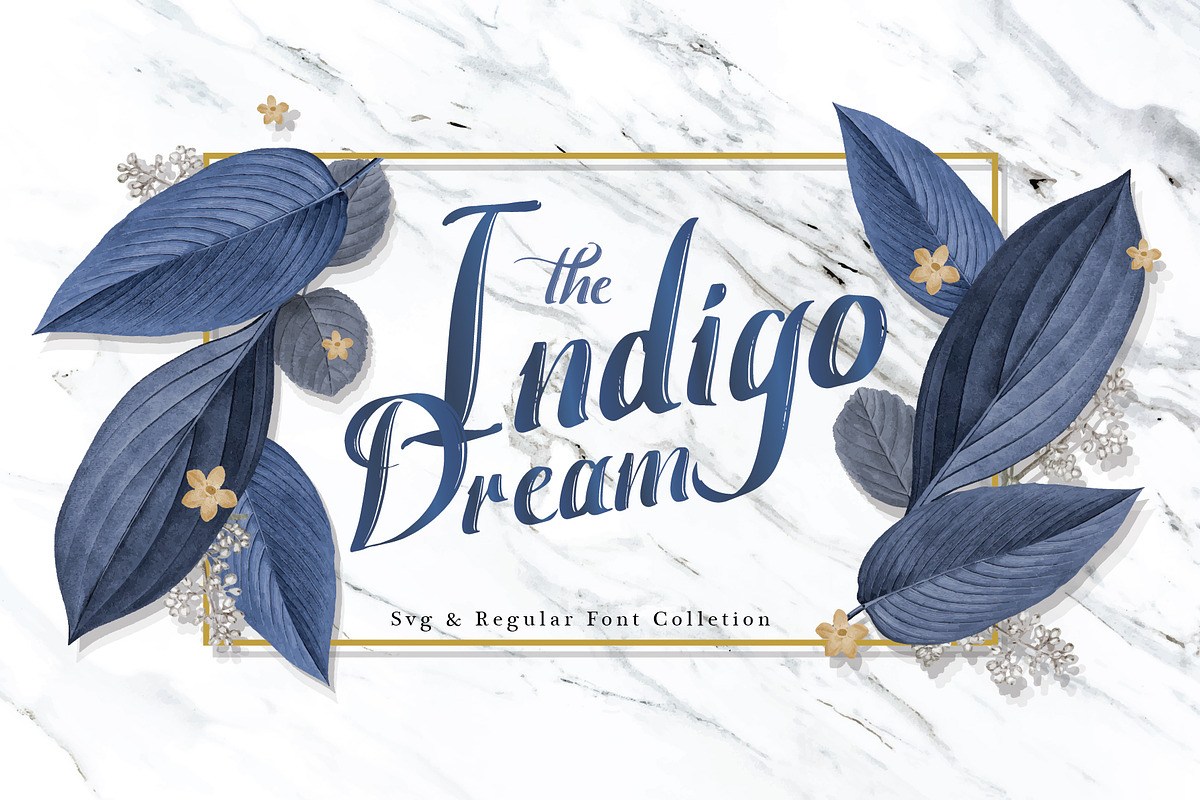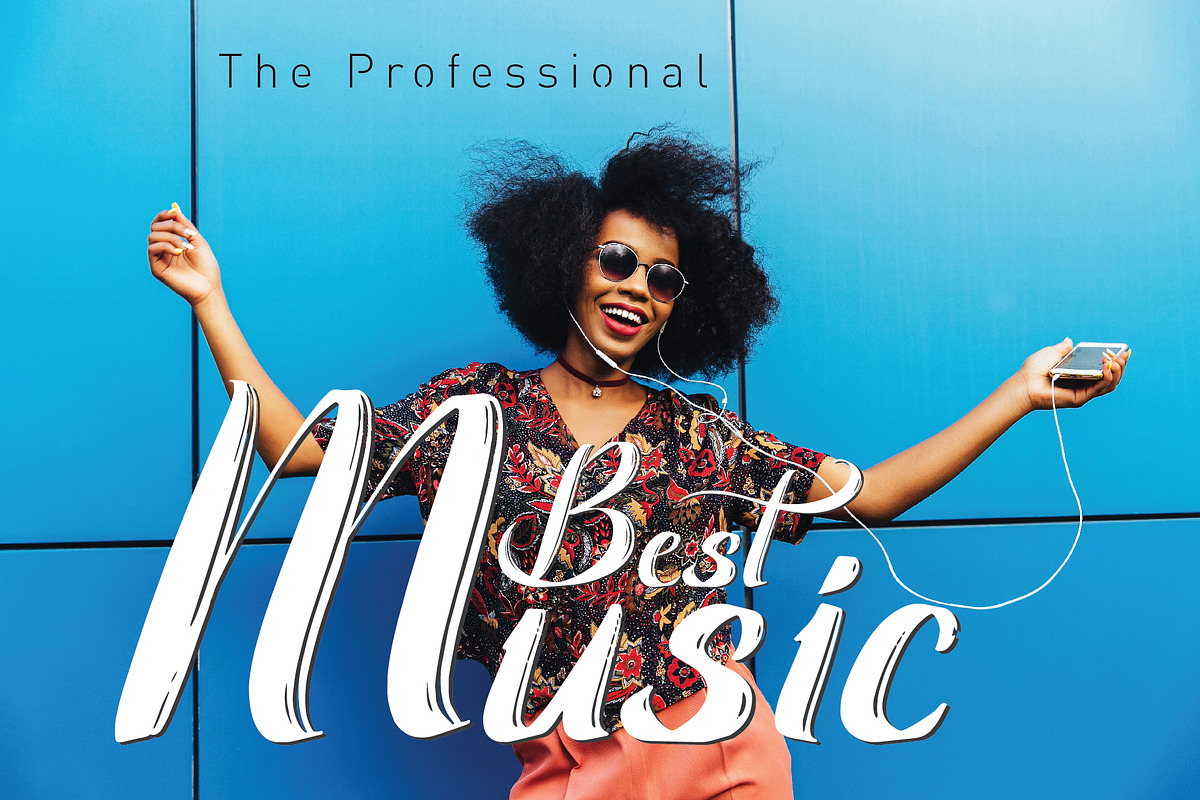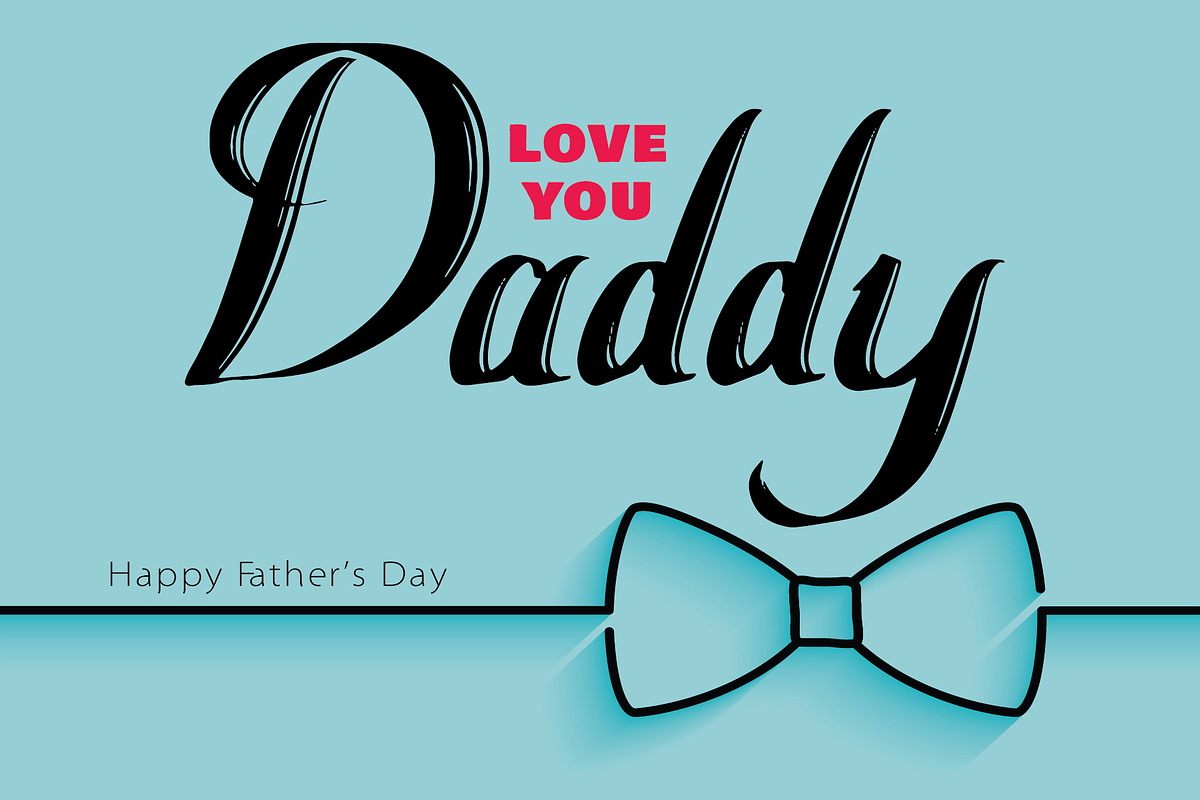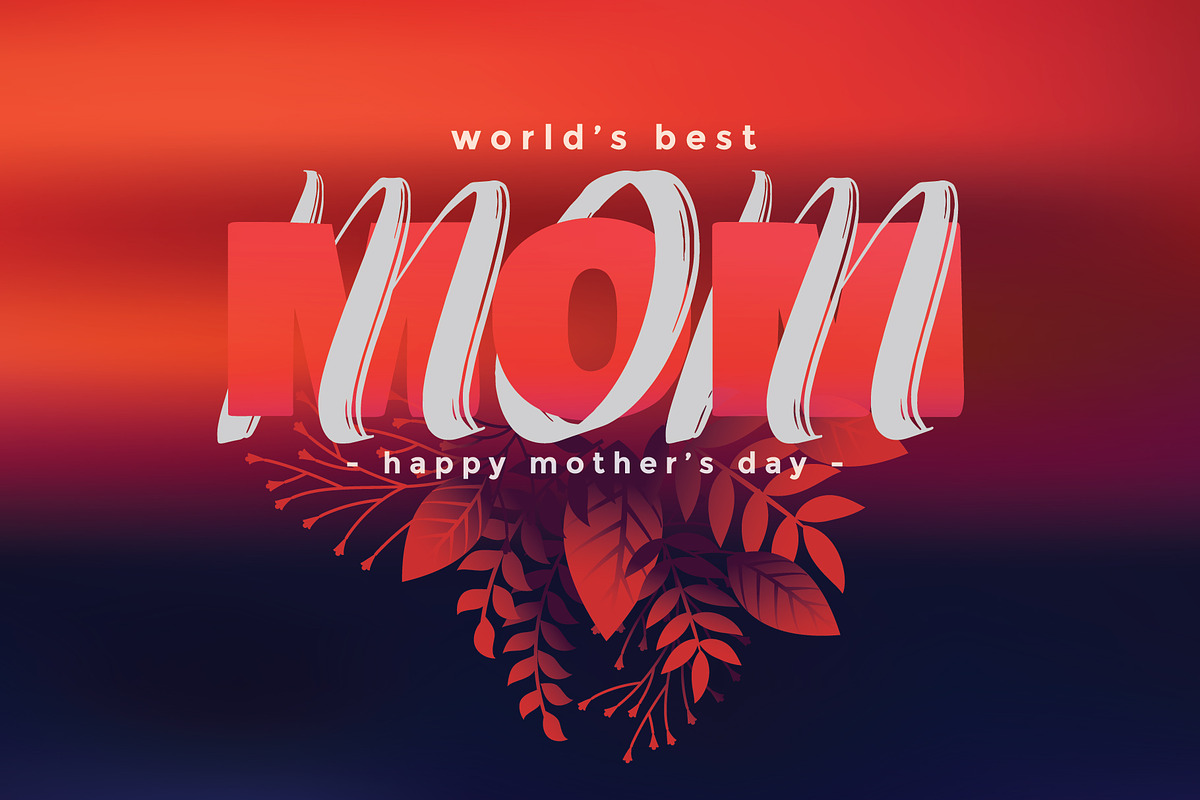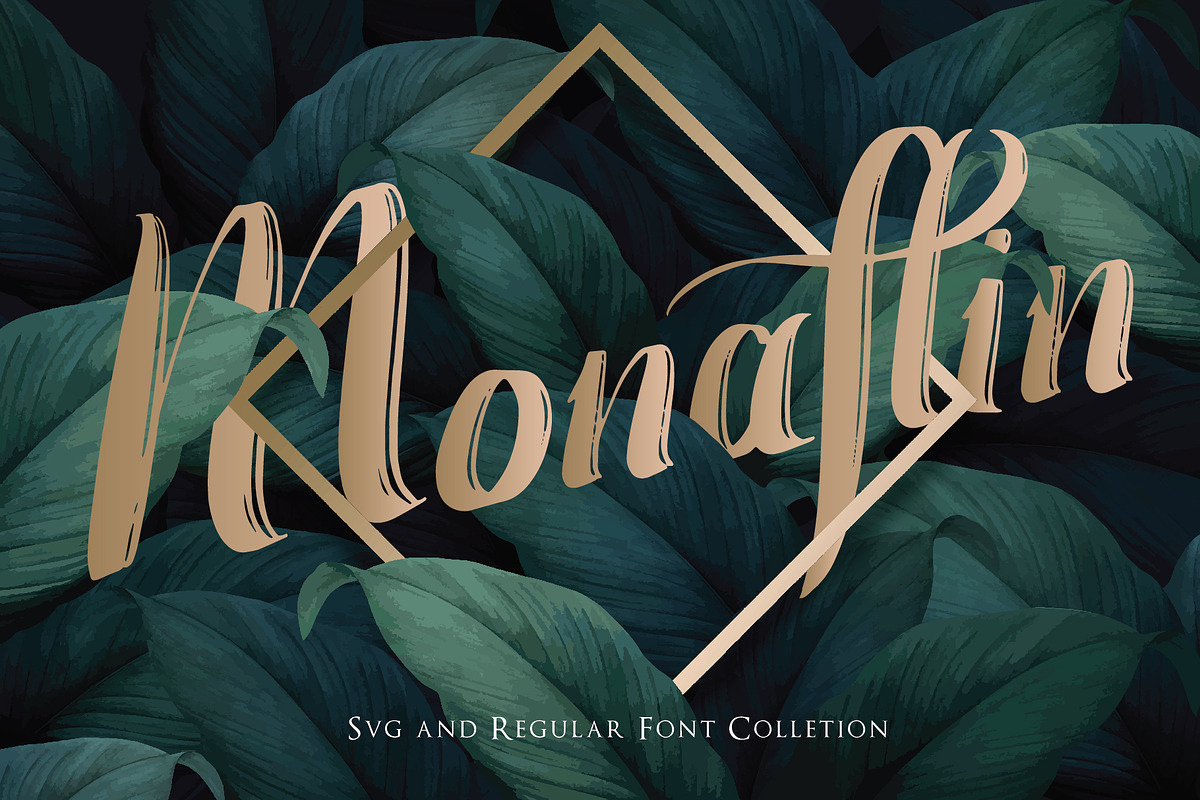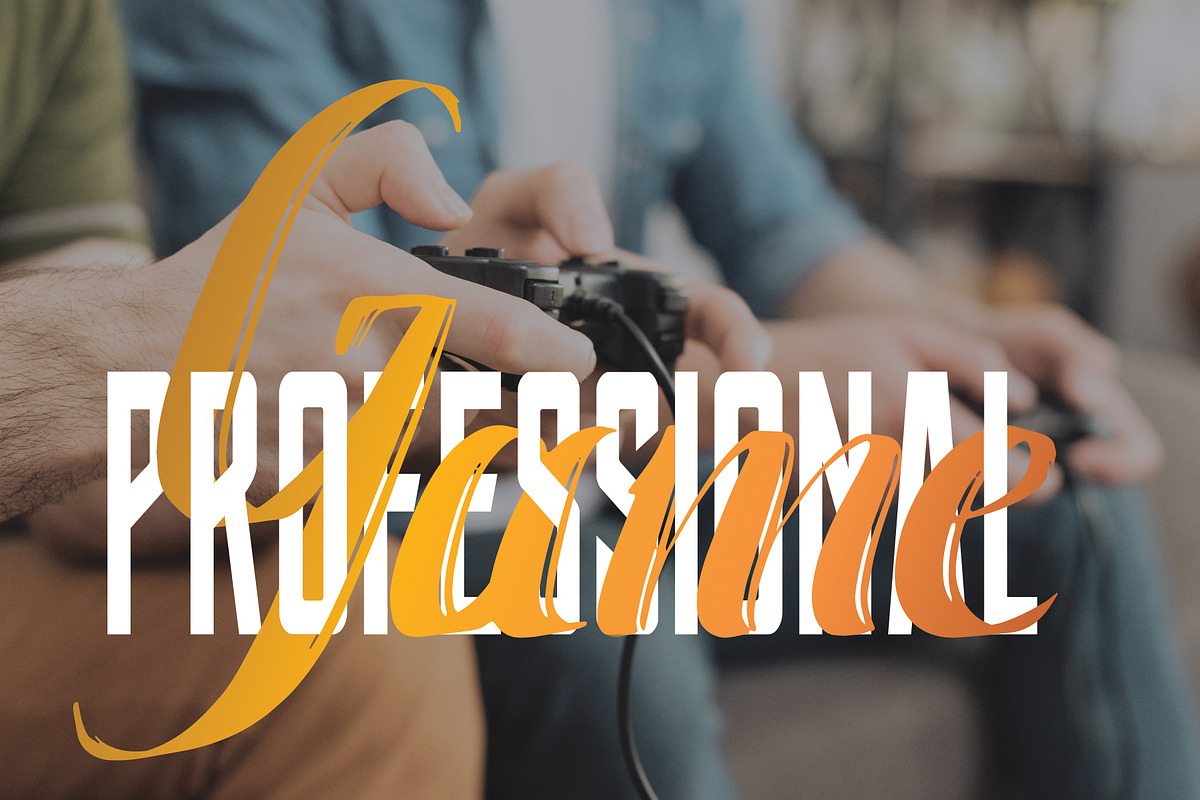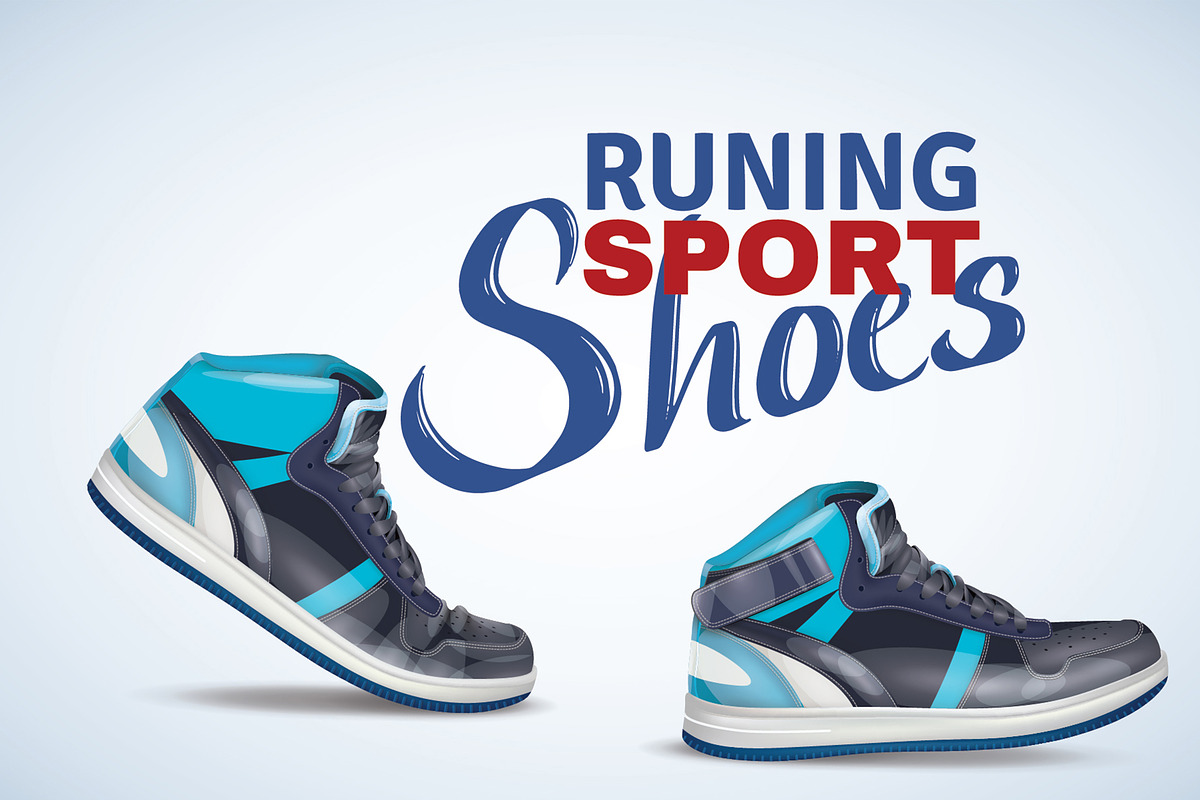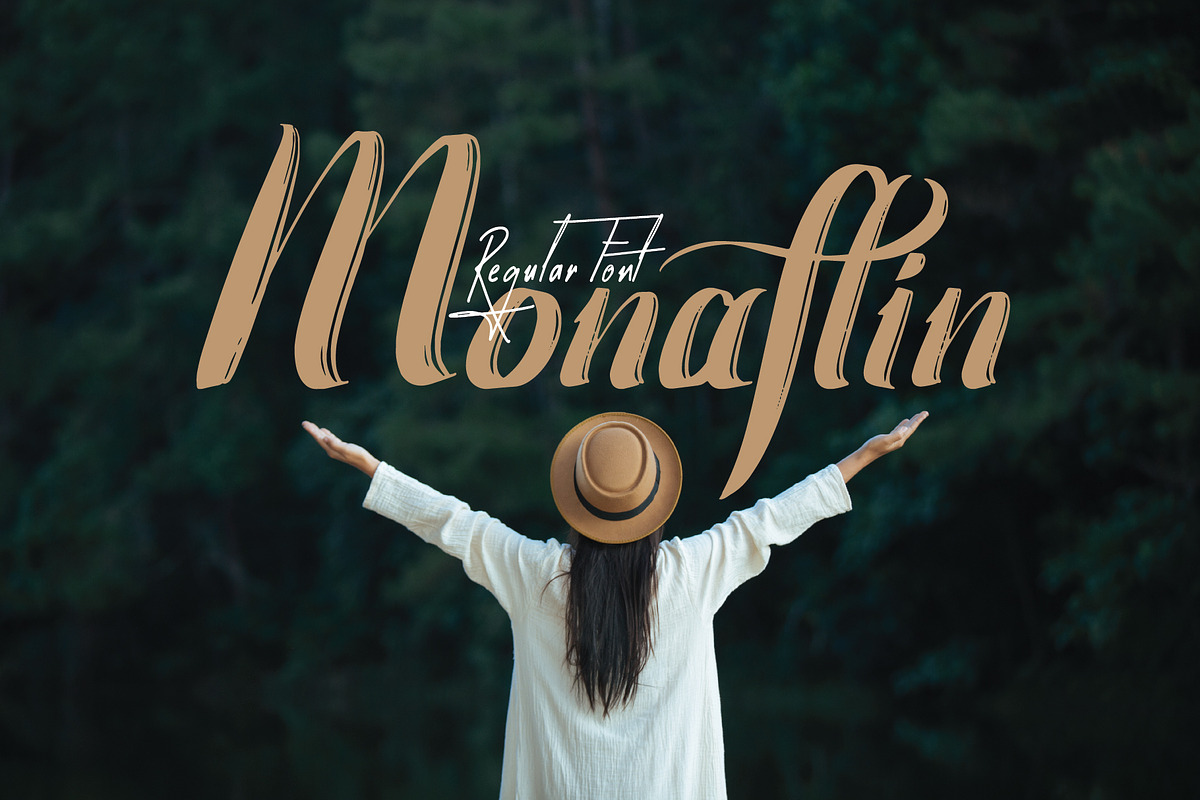
Monaflin Regular Font
The high quality details and the visually appealing Monaflin font fit most design needs, so the font is the perfect choice for designers in large font sizes (ads, labels, brochures, posters, etc.). Very easy to install,
- Monaflin is an elegant modern font, that comes with unique characteristics and high quality details.
Monaflin Regular Font by essegraphic fits naturally into Branding, posters, packaging, typography.